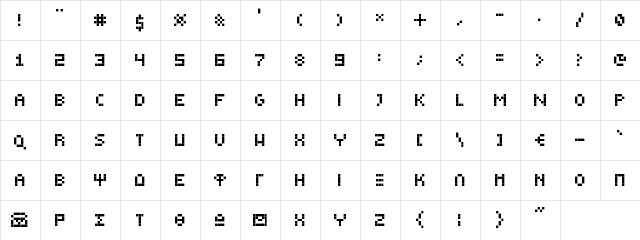
GreekBearTinyE Regular
Design Context for GreekBearTinyE Typeface
GreekBearTinyE offers clean, dependable letterforms without strong stylistic allegiance, making it a practical choice for designers who need flexibility.